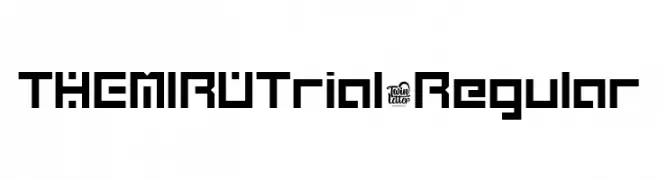
( Fonts by twinletter )
A bold, geometric font with a futuristic and digital design.
( Fonts by twinletter )
A bold, geometric font with a modern, futuristic style.